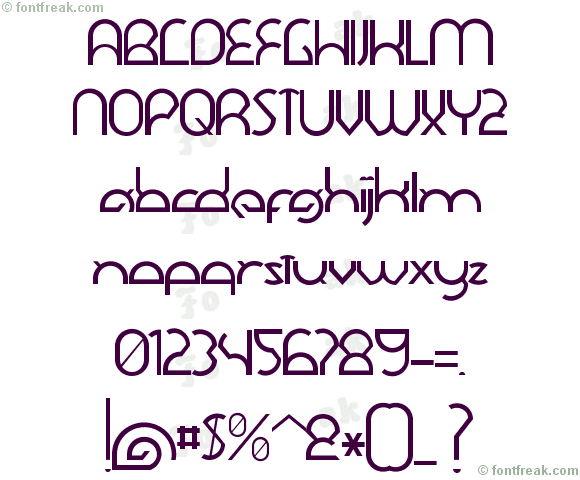
Dawner Bold
About Dawner Bold
Dawner Bold, crafted by Alberto Villanueva, is a captivating display font that stands out in the realm of modern typography. This font, categorized as a decorative typeface, features a unique blend of playfulness and elegance, making it a versatile choice for a variety of design projects. The bold stroke weight adds a commanding presence, while the softly rounded edges and slight contrast between thick and thin lines provide a sense of warmth and approachability. The spacing is well-balanced, ensuring that each character is easily readable while maintaining a cohesive flow.
Ideal for use in wedding invitations, Dawner Bold brings a touch of whimsy to special occasions, making it perfect for announcements and celebratory materials. Its distinctive style also lends itself well to movie posters, where it can capture the viewer's attention and convey the film's theme effectively. Additionally, this font is suitable for restaurant menus, creating an inviting atmosphere that enhances the dining experience. Content creators and graphic designers will find Dawner Bold to be an excellent choice for social media graphics, promotional materials, and branding, as it adds a memorable touch to any visual project.
What sets Dawner Bold apart is its ability to merge artistic flair with practicality. This font offers a fresh perspective on bold typography, making it a standout choice for anyone looking to make a lasting impression. Don’t miss the opportunity to enhance your designs with the Dawner Bold font free download, and explore the creative possibilities it presents.